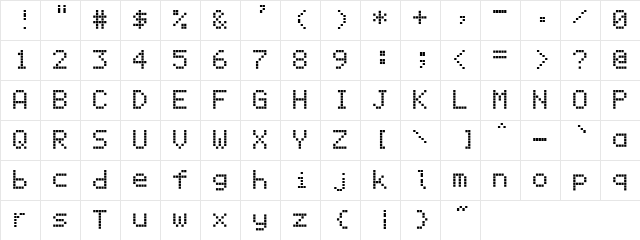
DisplayMonoB Regular
Design Context for DisplayMonoB Typeface
DisplayMonoB is built around its visual character rather than neutral utility — its distinctive forms are designed to make an impression at display sizes.
Font Pairing: Pair with a clean neutral sans-serif for body copy to let DisplayMonoB's character lead without overwhelming the composition.
Pro Tip: Treat DisplayMonoB as the centrepiece of your typographic hierarchy. One strong heading set in a decorative face can carry an entire layout.